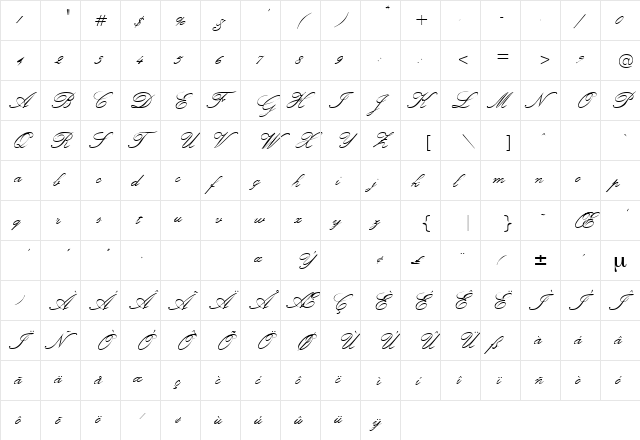
HelenaScript Regular
Design Context for HelenaScript Typeface
HelenaScript brings a calligraphic fluidity to the page — its connecting strokes and expressive curves give it an unmistakably human quality.
Font Pairing: Combine HelenaScript with a simple geometric sans for maximum contrast — the tension between flowing curves and clean structure is a classic typographic pairing.
Pro Tip: Pair HelenaScript with a clean sans-serif for supporting text. The contrast between fluid script and geometric structure creates an elegant typographic hierarchy.